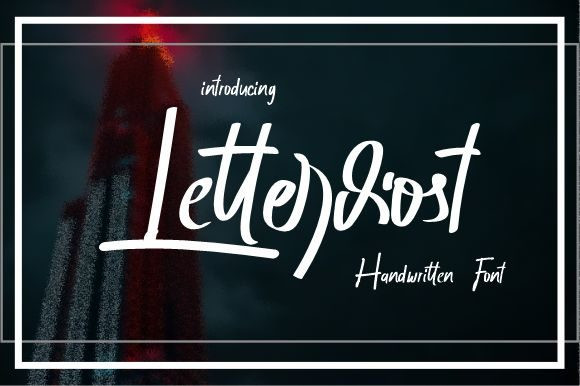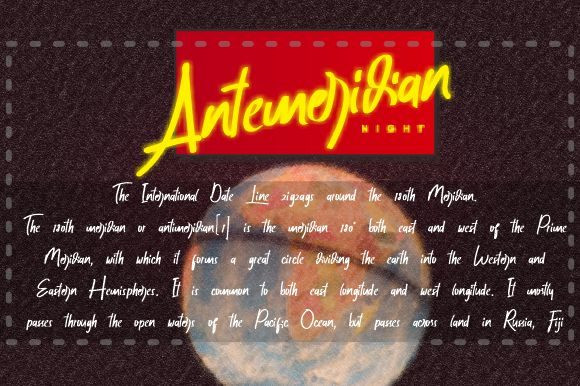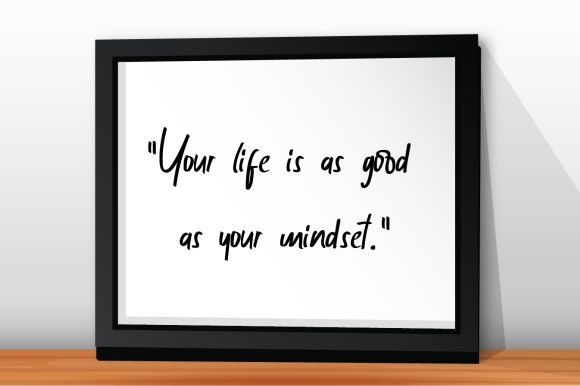
Letterdiost Font
Letterdiost is a tasteful handwritten font. It maintains its classy calligraphic influences while feeling contemporary and fresh. This versatility will appeal to a wide range of crafty ideas, from letterheads and titles, to stationery.